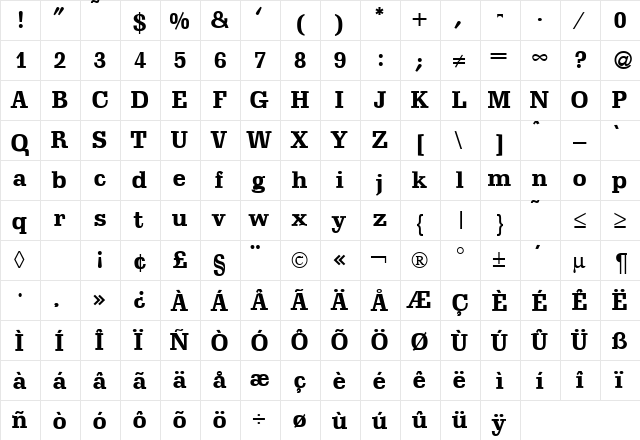
Schadow Bold
Design Context for Schadow Typeface
Schadow offers clean, dependable letterforms without strong stylistic allegiance, making it a practical choice for designers who need flexibility. Its bold stroke weight gives it real presence on the page.